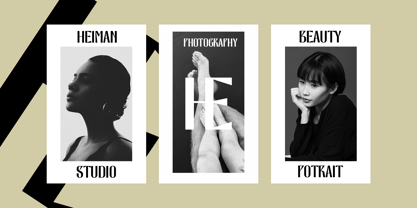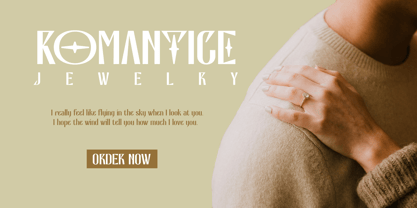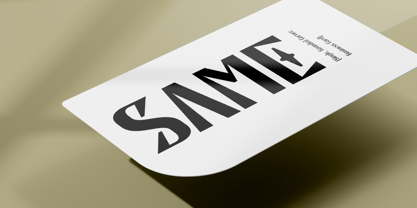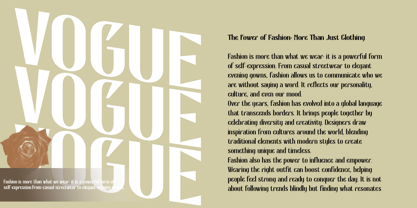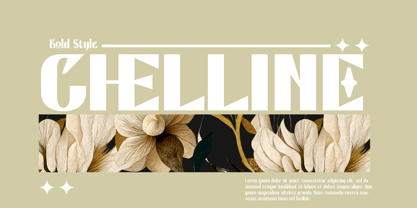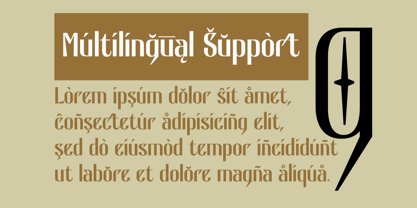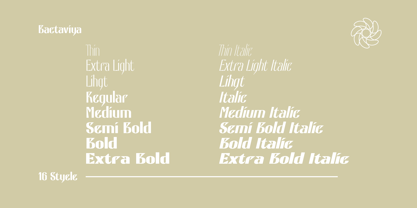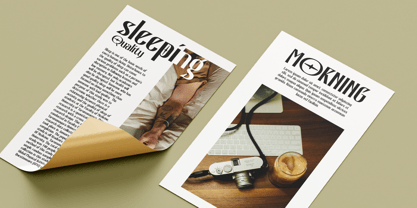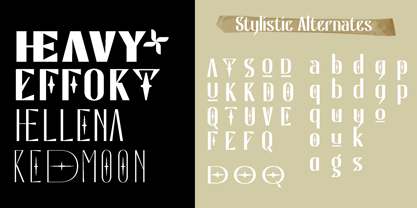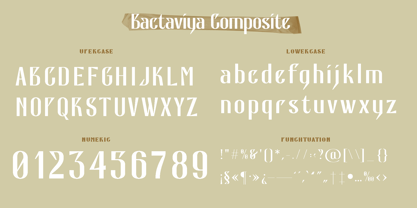
Bactaviya Variable
by Laroyba Type
The Bactaviya Variable Font Family was designed by Habib Abdur Rofi and published by Laroyba Type. Bactaviya Variable contains 2 styles and family package options. More about this family
Bactaviya – A Unique Font Family with 16 Exclusive Styles
Bring bold character and elegant aesthetics to your designs with Bactaviya, a font family featuring 16 distinct styles that combine geometric rigidity with artistic uniqueness. With its structured yet dynamic design, this font exudes a modern, futuristic, and sophisticated feel—perfect for branding, editorial work, posters, packaging, and other creative projects.
Why Choose Bactaviya?
16 Distinct Styles – Maximum flexibility for diverse design needs.
Stylistic Alternates & Ligatures – Unique letter variations to enhance your creativity.
Strong & Elegant Character – A perfect blend of boldness and refined aesthetics.
Versatile for Various Uses – Ideal for logos, album covers, fashion branding, and more.